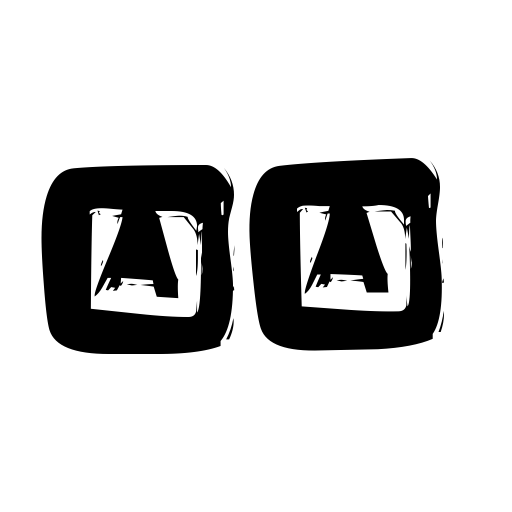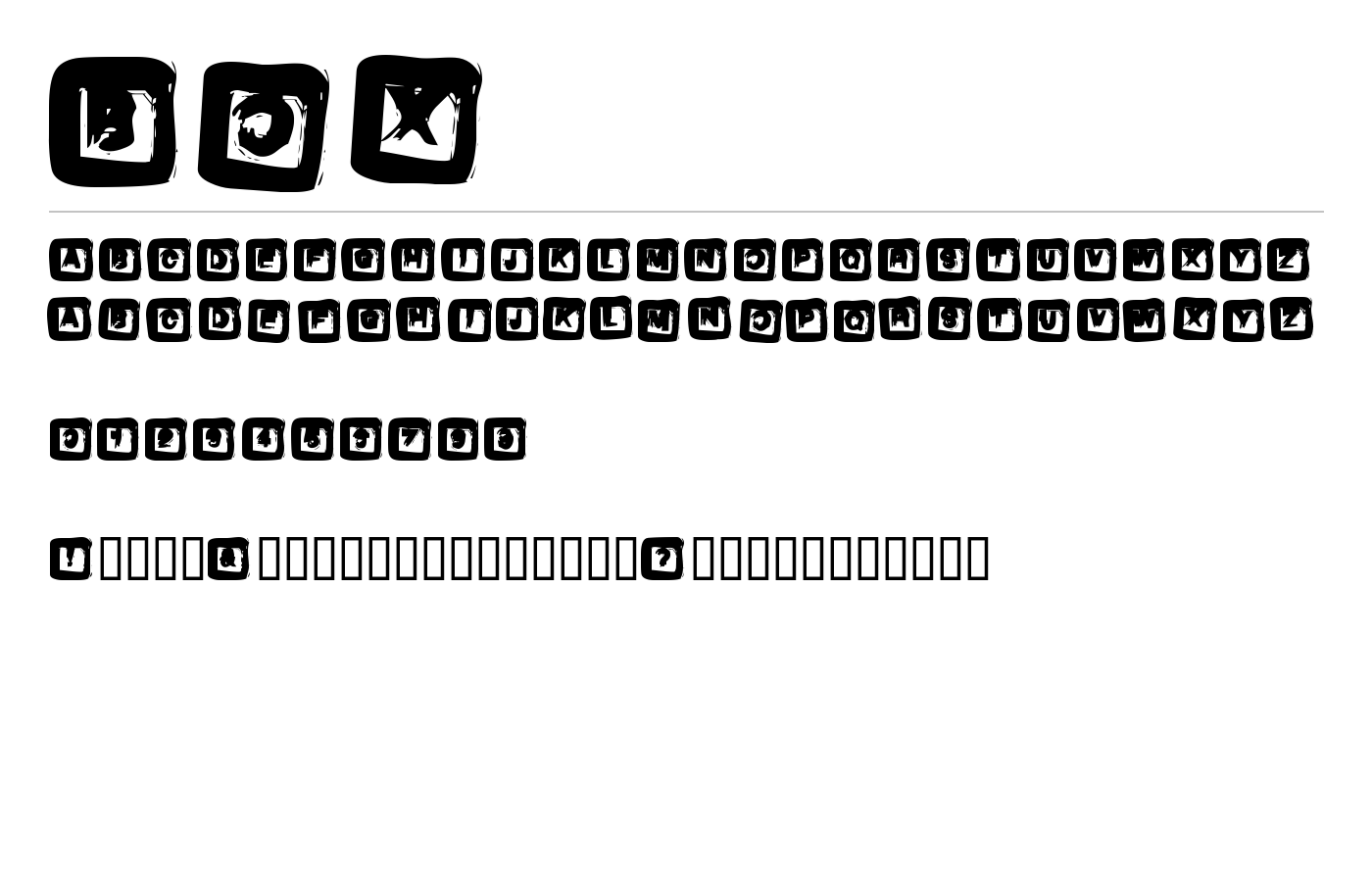
Box Font is a playful and bold display typeface featuring uppercase letters enclosed in rough, imperfect square shapes that give a hand-drawn, sketch-like feel. Its thick strokes and quirky, uneven edges create a whimsical, casual personality ideal for creative projects, informal branding, and eye-catching headlines. This font works best where an artistic, fun, and approachable tone is desired, such as posters, children’s materials, or informal logo designs.
Box Font